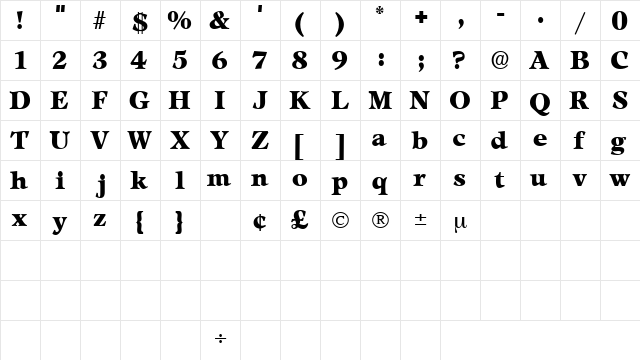
MezzoDisplaySSK Regular
Design Context for MezzoDisplaySSK Typeface
MezzoDisplaySSK brings ornamental detail and strong personality to headlines and identities, where visual impact matters more than quiet functionality.
Font Pairing: Pair with a clean neutral sans-serif for body copy to let MezzoDisplaySSK's character lead without overwhelming the composition.
Pro Tip: Use MezzoDisplaySSK exclusively at display sizes — it was designed to be seen, not read at length. Let a neutral companion handle body copy.